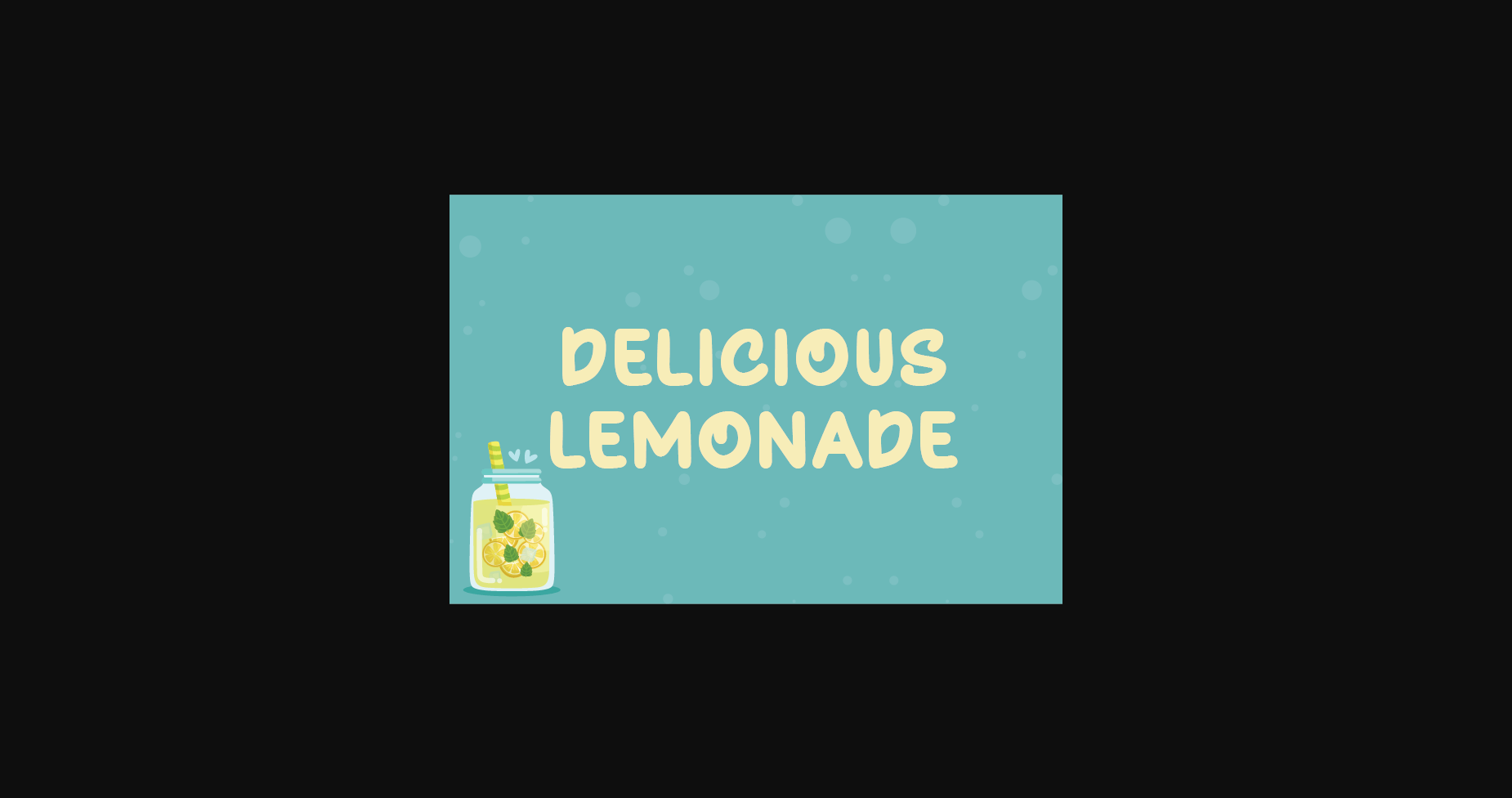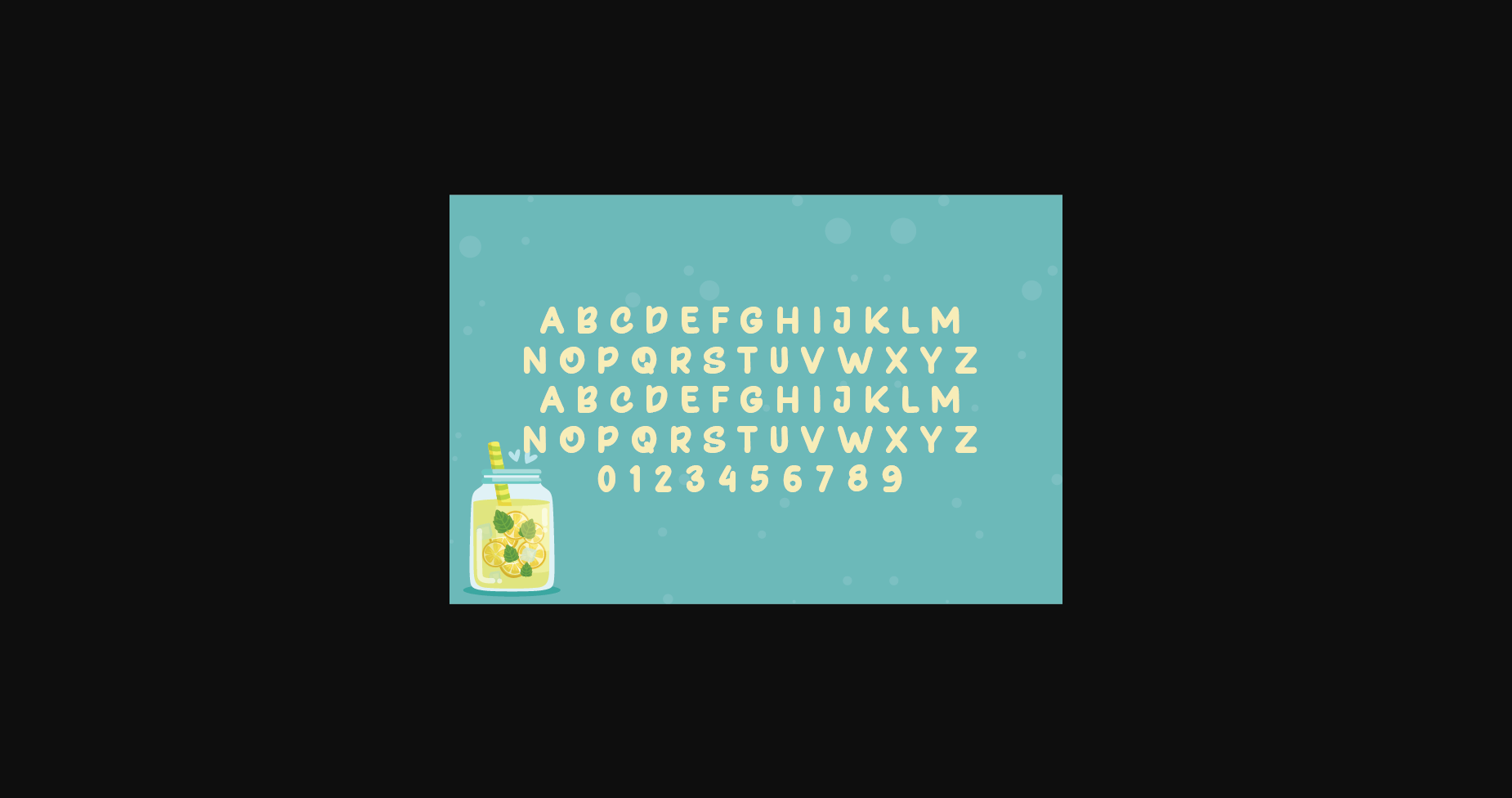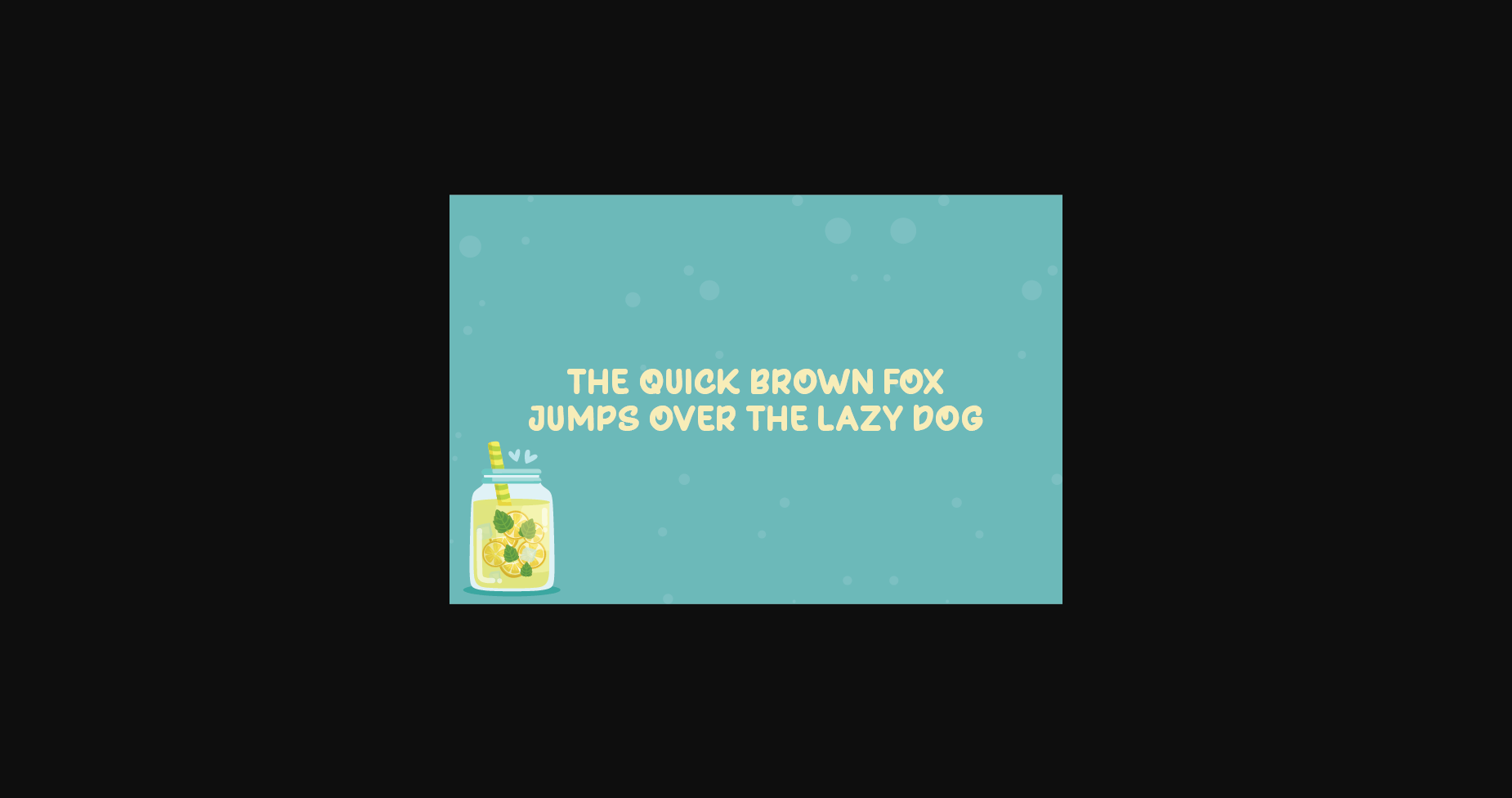
Delicious Lemonade Font
About Delicious Lemonade Font
Delicious Lemonade is a natural handwritten font without changing a single node in each character’s indentation, this makes this font very interesting and unique. Perfect for quotes, notes, tees, and any product design.